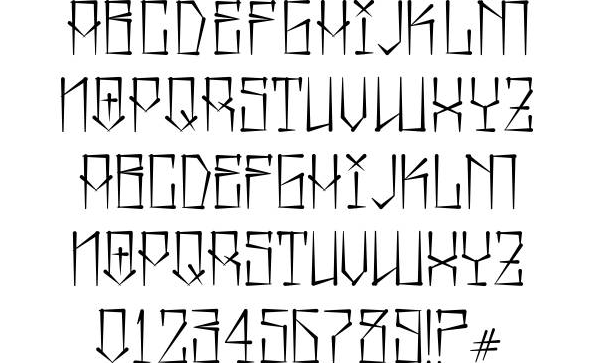
Mexican Pride Font
Mexican Pride font is a display font. This interplay among history and destiny gives us masses of contrast—and lots of exciting trends to hold a watch out for new contrast.
Style Of The Mexican Pride Font